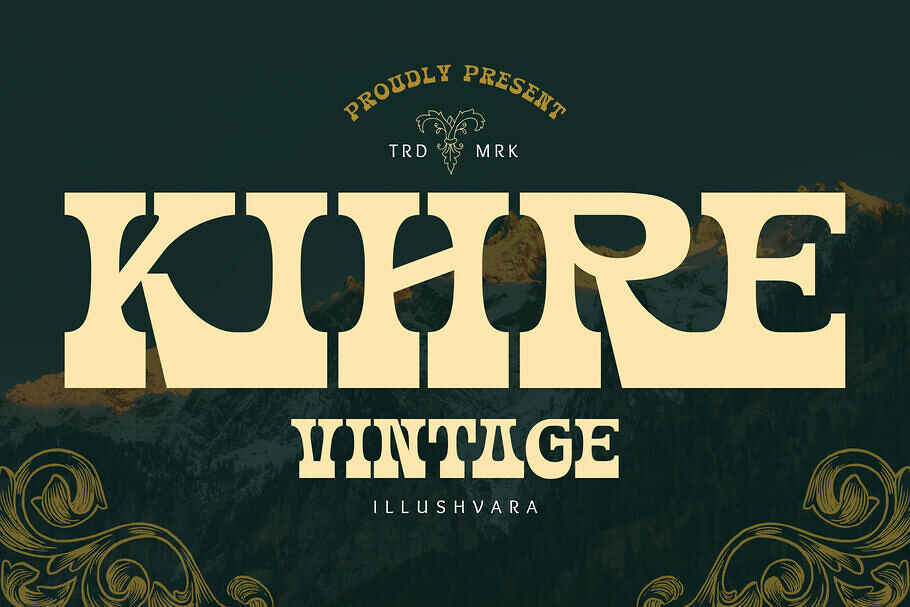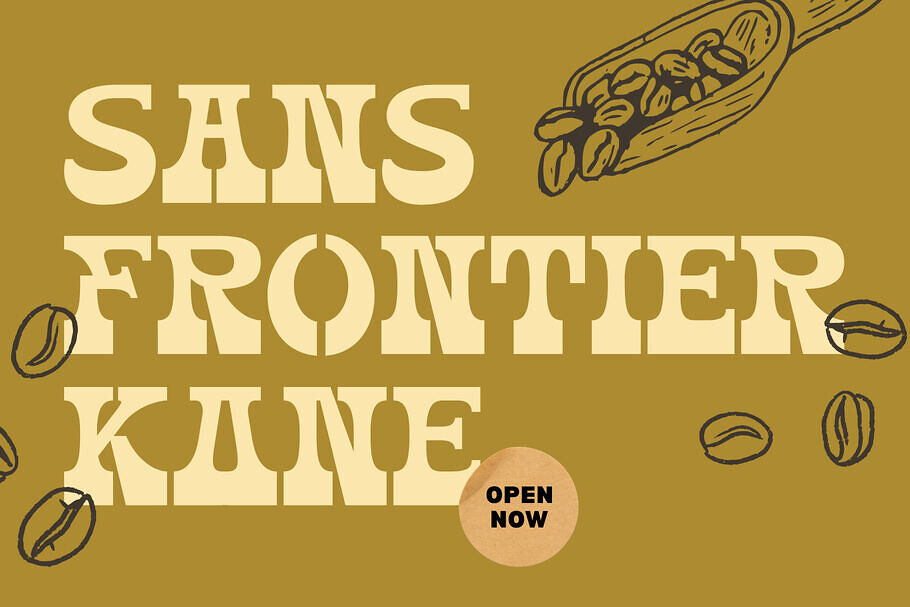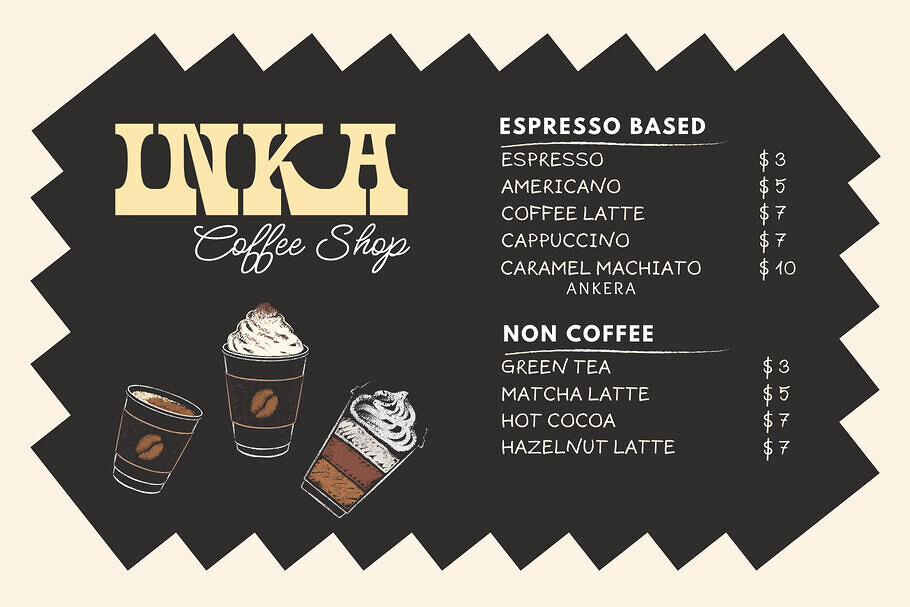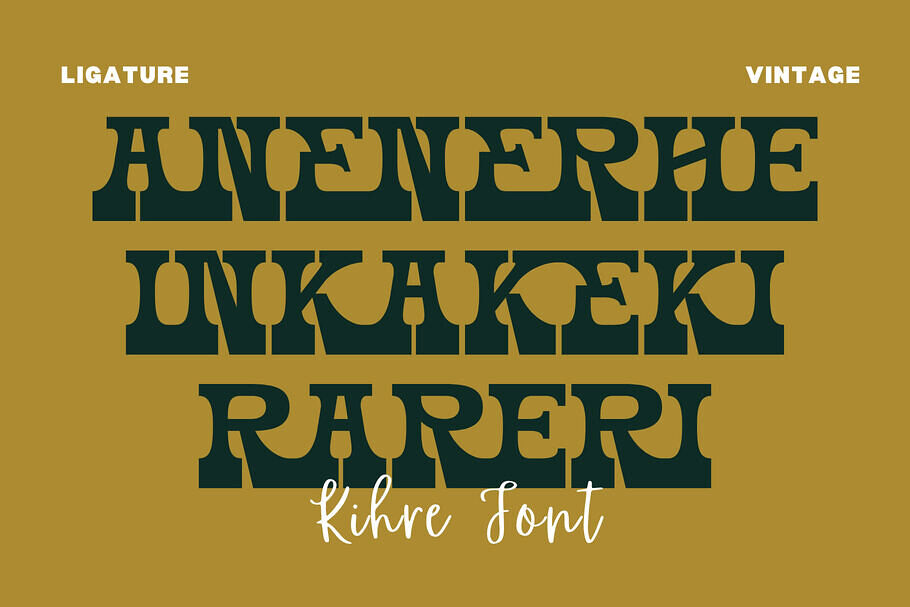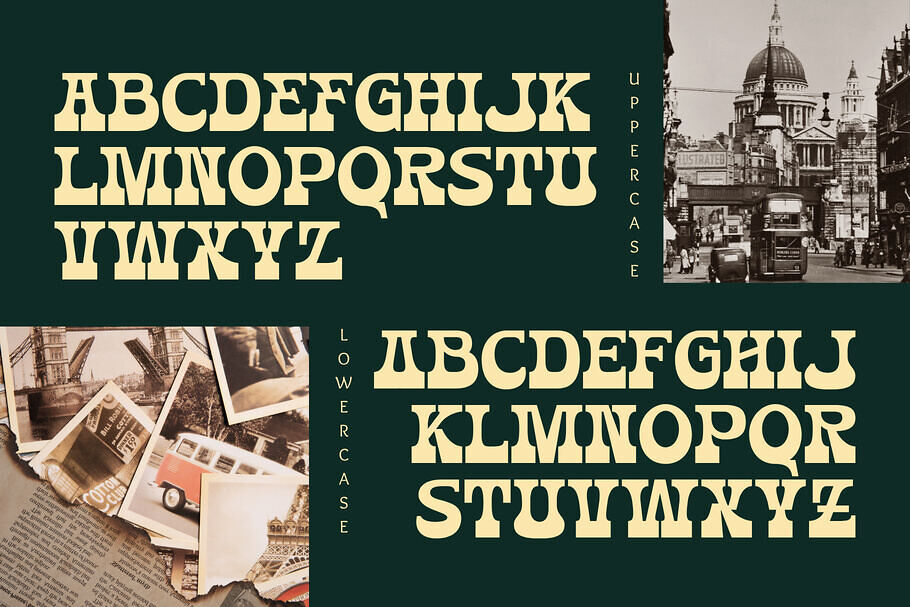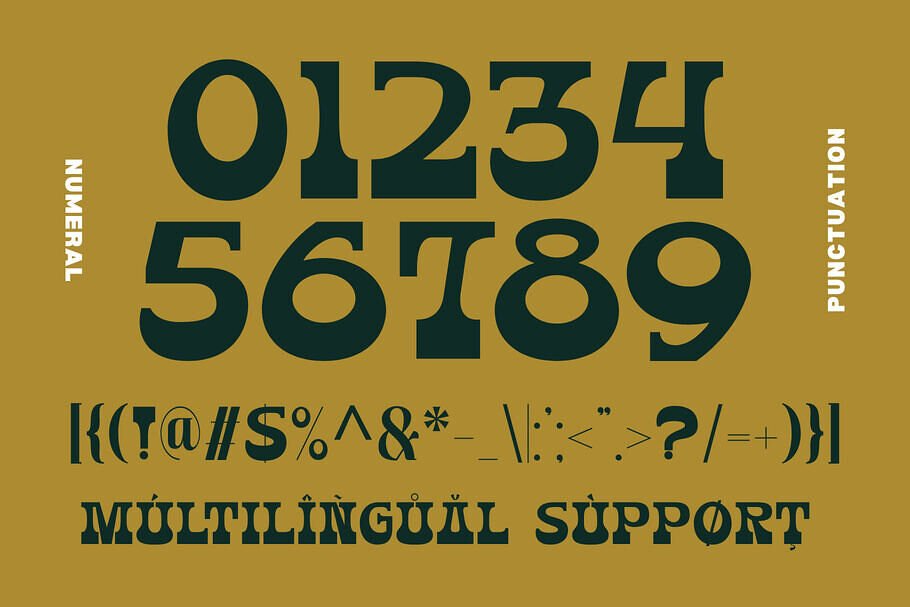
Kihre Vintage Font
Kihre is a bold vintage display serif inspired by classic western typography, retro signage, and timeless craftsmanship. Designed with strong curves, chunky letterforms, and distinctive stencil-style cutouts, it delivers a rugged yet elegant personality.
Perfect for logos, branding, coffee shops, restaurants, labels, motorcycle clubs, packaging, posters, editorial headlines, and nostalgic products. Kihre brings authentic vintage charm while remaining highly legible across print and digital projects. Whether you’re creating rustic branding or bold retro designs, this typeface adds a powerful classic statement with unforgettable character.